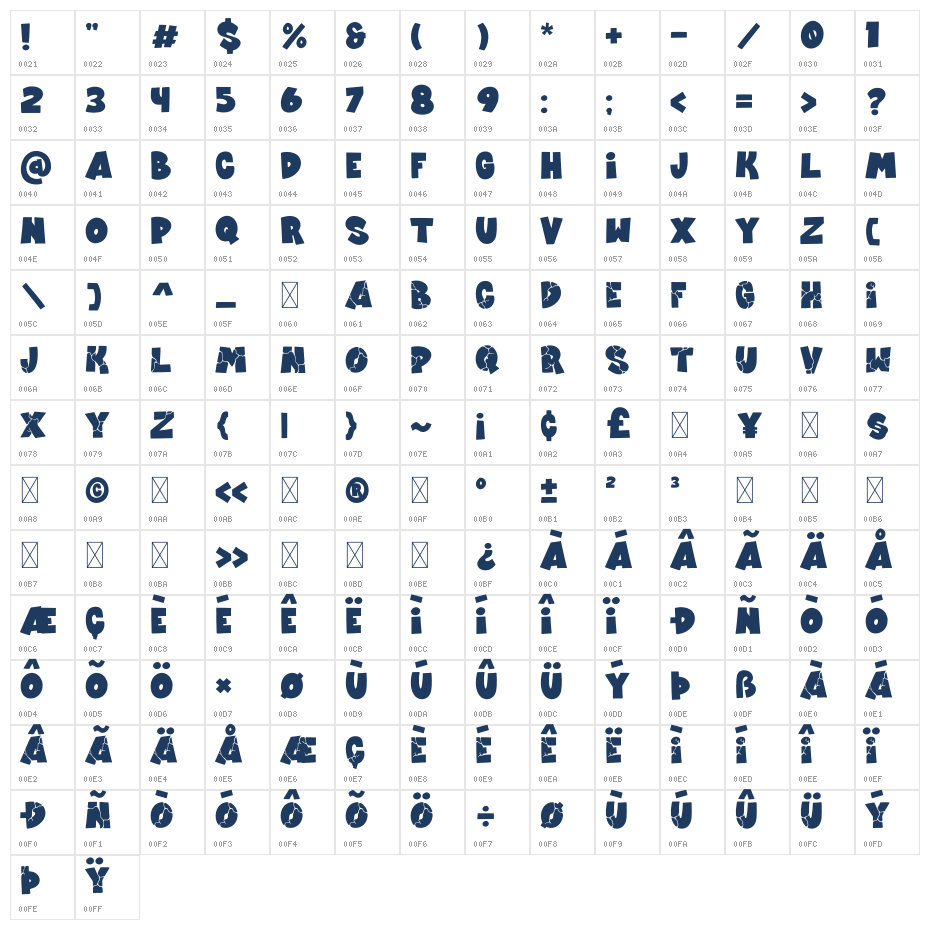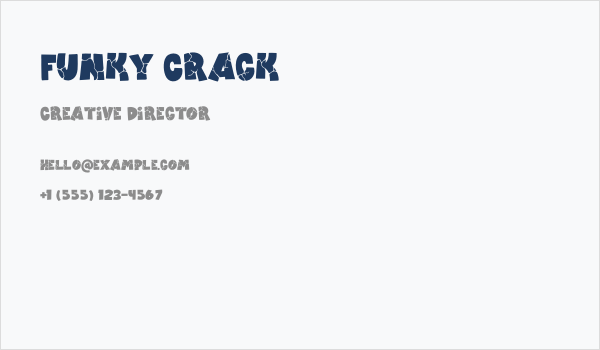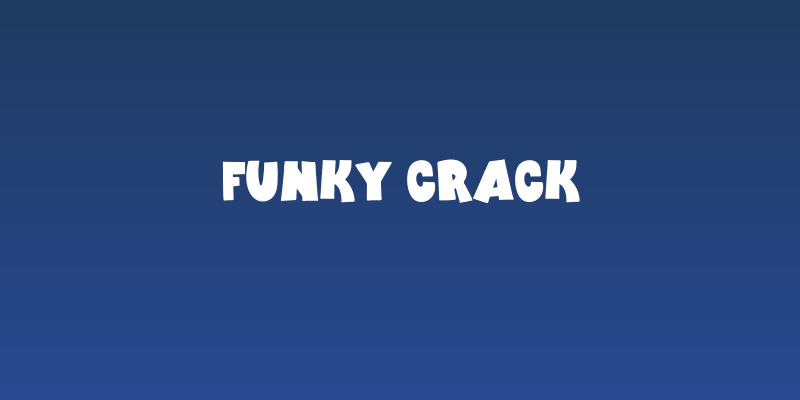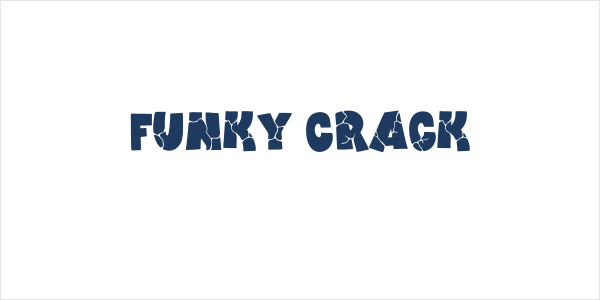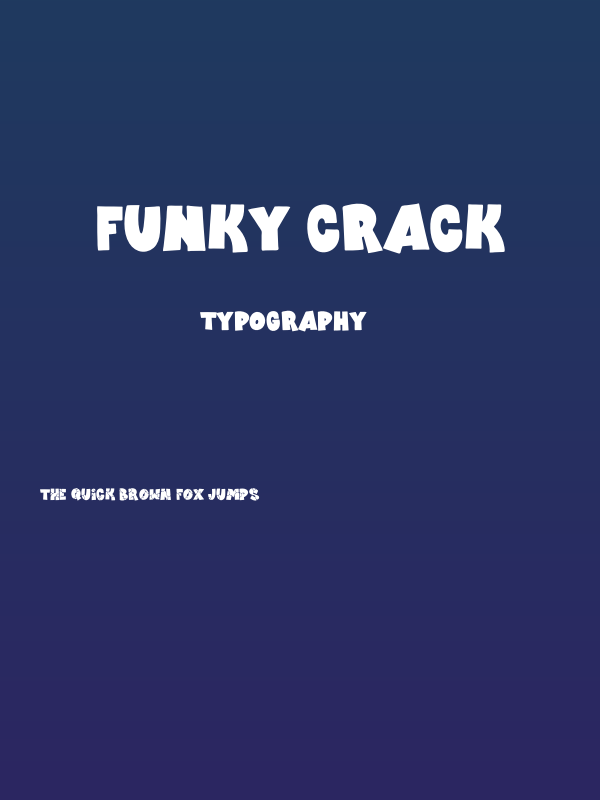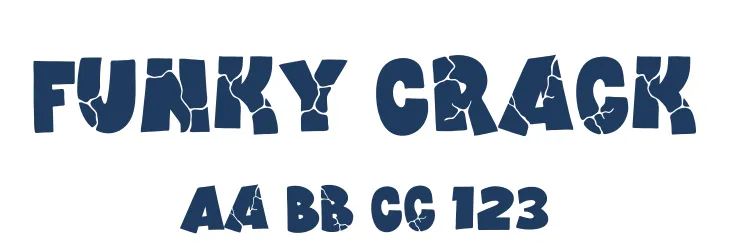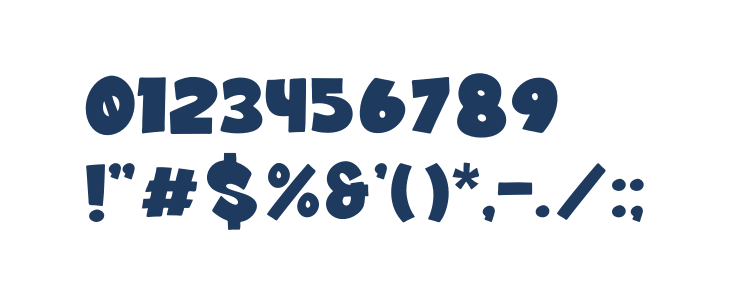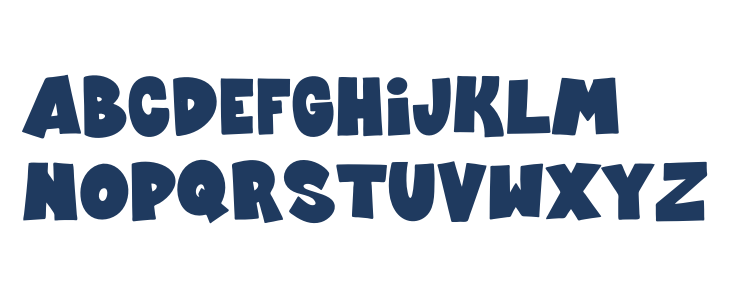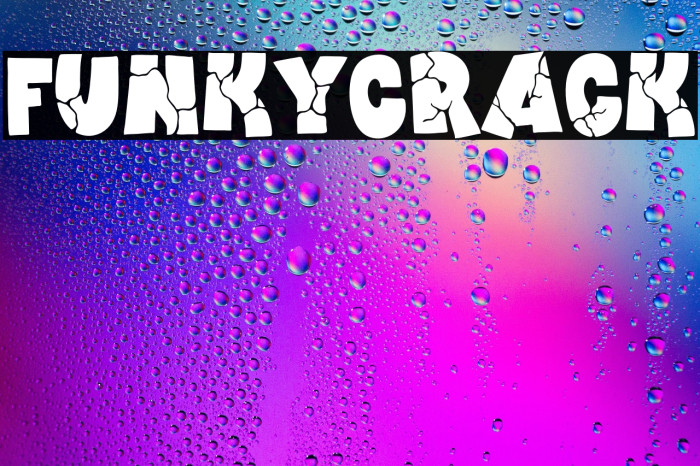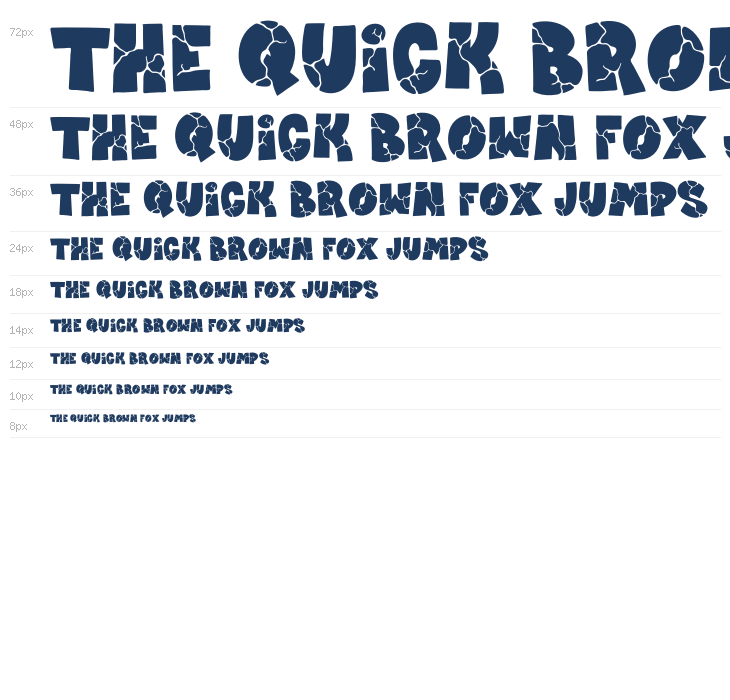
Funky Crack Font
Funky Crack Description
A playful, bold, and chunky display font with a cartoonish style. The uppercase letters are thick and rounded, suitable for fun and informal designs. The second style features a cracked, distressed effect, giving it a rugged, textured appearance. The font includes numerals and common punctuation symbols.
| Overall Style | Playful, Cartoonish, Rugged |
| Use Case | Headlines, Logos, Posters, Packaging |